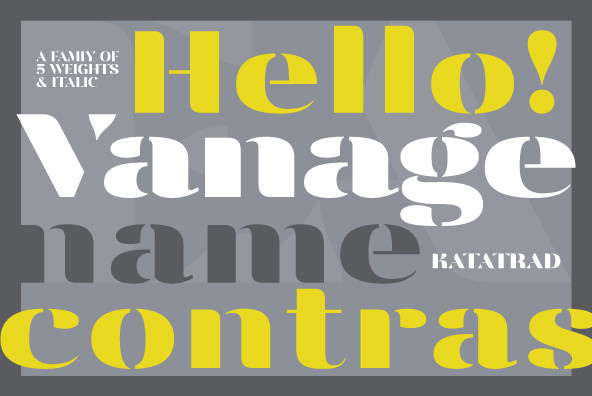
Vanage Font
Vanage Font is ideal for luxury fashion branding, high-end product packaging, premium lifestyle marketing, sophisticated editorial design, upscale restaurant menus, exclusive event invitations, boutique hotel signage, and elegant corporate communications.
What makes Vanage Font so exciting is its refined elegance that perfectly balances contemporary sophistication with timeless class, featuring meticulously crafted letterforms that exude luxury and exclusivity. This premium typeface demonstrates exceptional attention to detail with subtle design elements that create an atmosphere of prestige and quality. The font's distinguished character and polished appearance make it ideal for brands that need to communicate premium positioning and uncompromising quality standards.
The Vanage Font family includes regular, light, and bold weights, along with corresponding italic styles and refined alternative characters that provide designers with sophisticated typographic options for creating elevated brand experiences.
The carefully balanced letterforms of Vanage Font ensure optimal readability while maintaining its luxurious appeal across all applications. Each character reflects meticulous craftsmanship and design refinement, creating text that appears effortlessly sophisticated and professionally polished. This attention to typographic excellence makes the font suitable for both prominent display usage and refined body text applications.
For luxury brand communications, Vanage Font provides the perfect solution for companies seeking to establish premium market positioning through superior typography. The font's distinctive elegance allows it to communicate exclusivity and quality while maintaining broad appeal across print, digital, and environmental applications where sophisticated typography reinforces brand prestige.